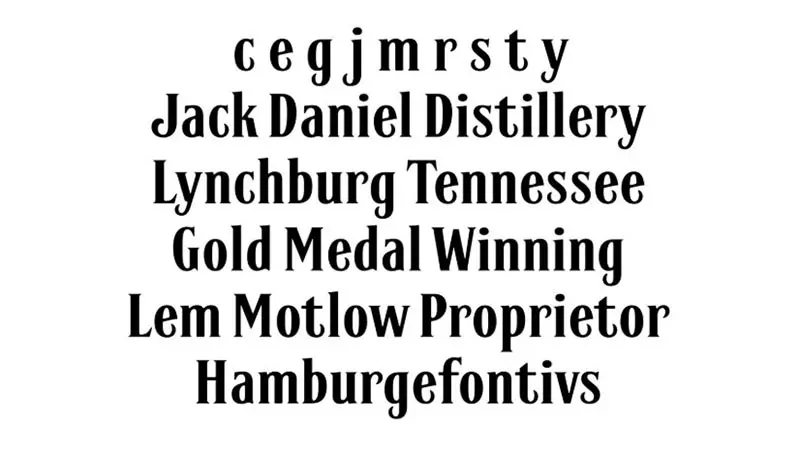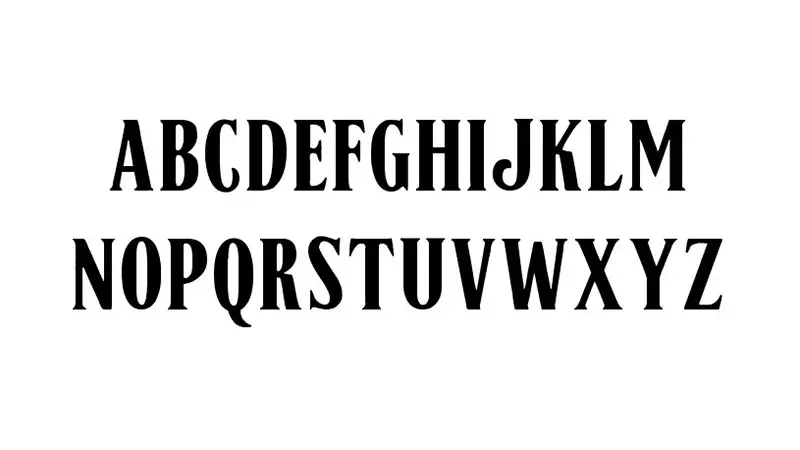
Jack Daniels Font
Jack Daniels Font is a great typeface, this Serif font family supports many international languages. This font family is being widely used in many designs. And this typeface is too much helpful for satisfying the client’s requirements. With Jack Daniels Font, your designs are more classy and elegant.
This smart font family contains 400 Glyph (basic Latin & supplements). The texture of this modern typeface is bold and direction Only strongly left to right glyphs. The cursive and serif corners have increased his beauty.
About Jack Daniels font! Now, Jack Daniels is a top-selling American whiskey all over the world. This is a famous American whiskey with bottles and the black label is the identity of this brand. In April 2017 Jack Daniels has sold over 12.5 million cases and at the end of 2017, this product output is near 16.1 million cases. Therefore, most whiskey lovers know about this.
The top and center is the Jasper font, based on the familiar Jack Daniel’s logo lettering (and bearing Jack Daniel’s given the first name). The real visual centerpiece, though, is the refined yet approachable Lynchburg Script, based on the Tennessee lettering in the label.
Where Jack Daniels Font works best
Reports, white papers and book interiors hold the eye longer when the text face has real serifs; Jack Daniels Font keeps that rhythm without looking old-fashioned.
Food, spirits and cosmetics brands lean on serif wordmarks to suggest age and care. Jack Daniels Font gives that signal at wordmark size.
Set Jack Daniels Font for the body of an award or a diploma and keep the recipient name in a script; the pairing is what makes a document feel official.
What kind of work does Jack Daniels Font suit?
It sits in the Serif Fonts group and reads as bold, elegant, friendly, modern. That makes it a candidate wherever those qualities help: headings, packaging, social graphics and brand work. Set it at the size you plan to use before deciding.